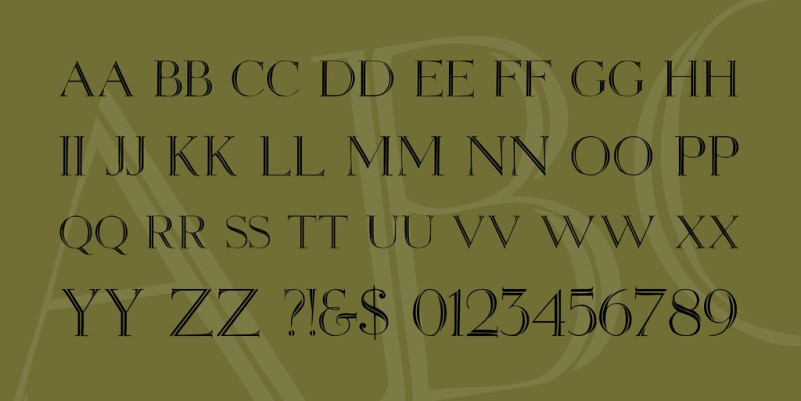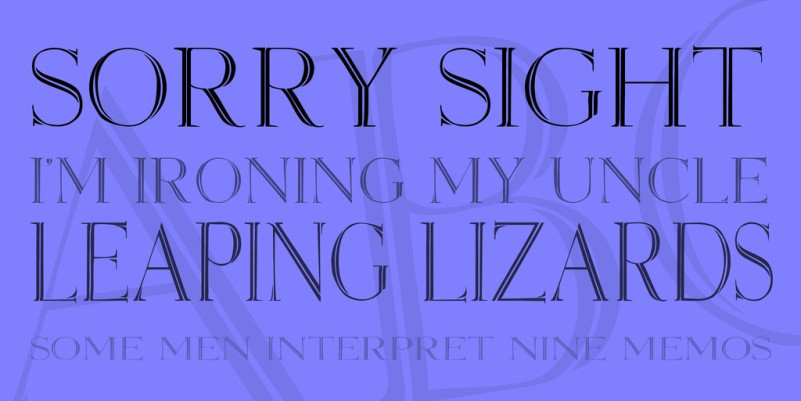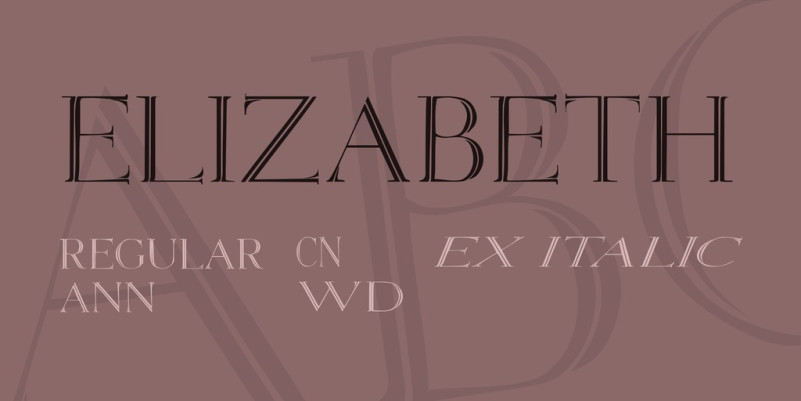
Elizabeth Display Font
Elizabeth Display Font – The decorative title typeface was designed at Polygraphmash type design bureau in 1967 by Iraida Chepil.
It is a decorative variant (‘open’, or ‘engraved’) of classical serif typefaces.